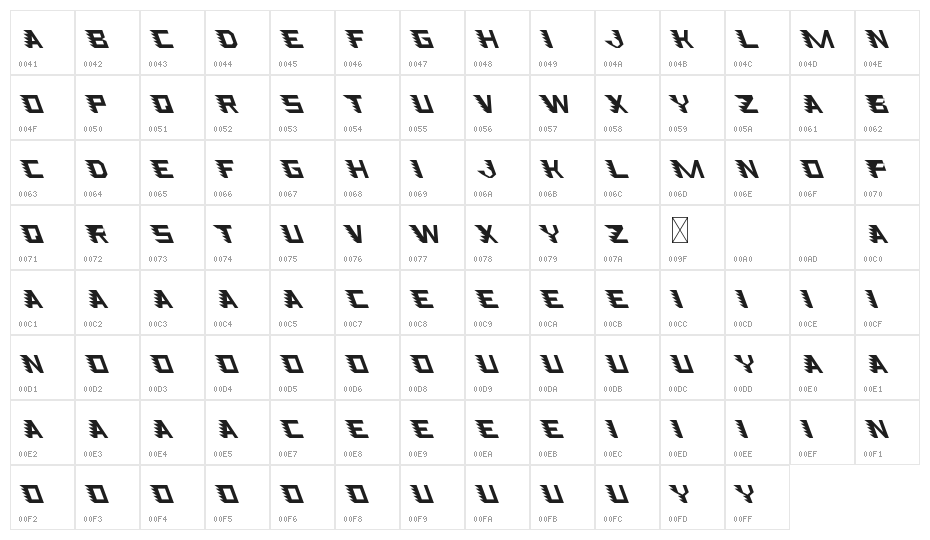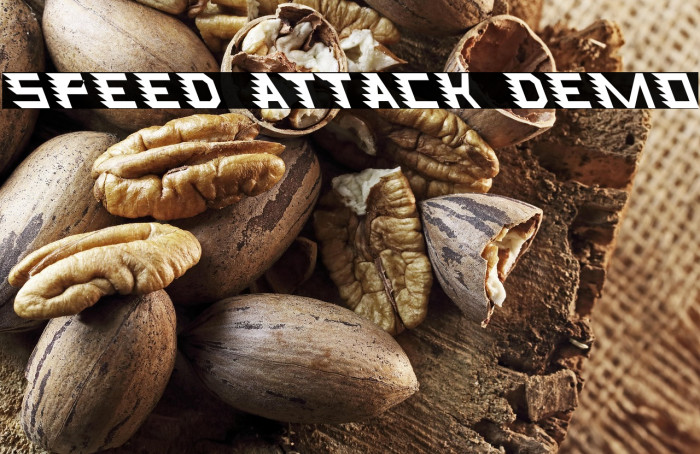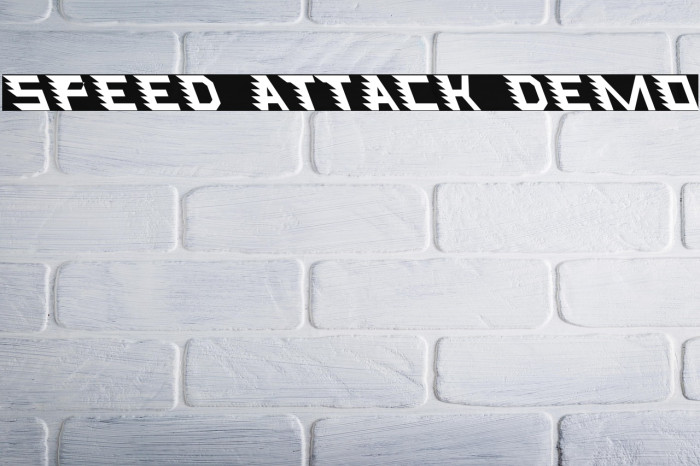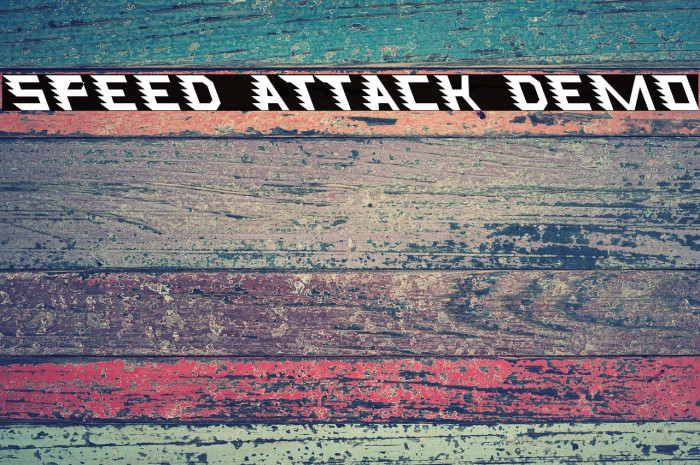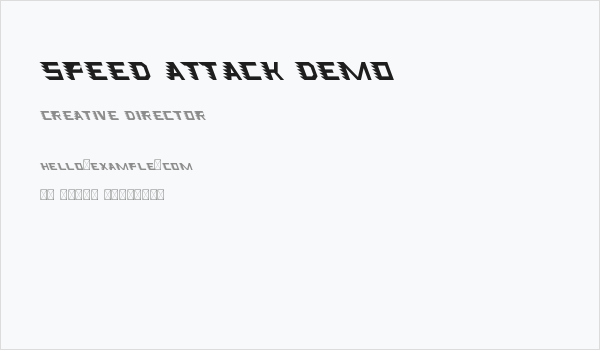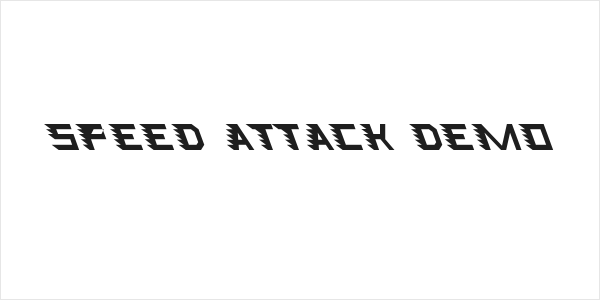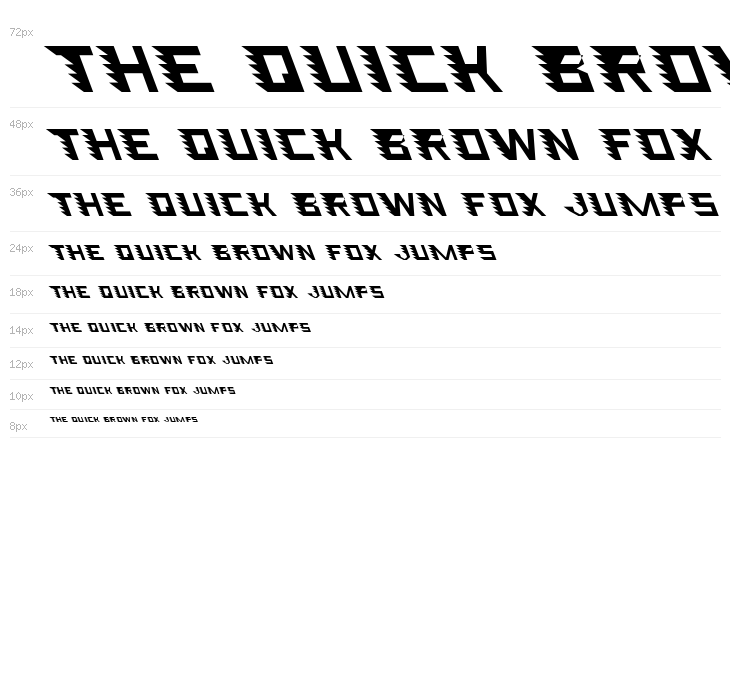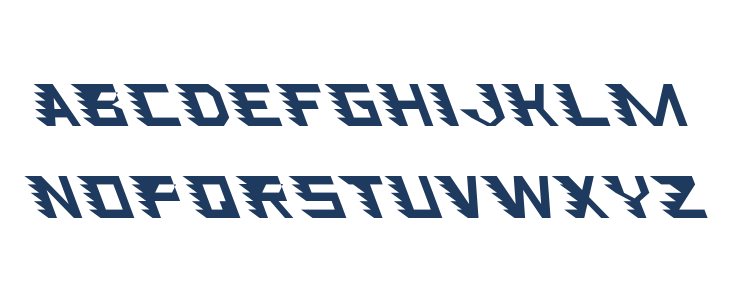
Speed Attack Demo Font
Speed Attack Demo Description
This font features a bold and aggressive design with sharp, angular edges that convey a sense of speed and motion. The characters are stylized with jagged, saw-like extensions that give them a dynamic and energetic appearance. The uppercase letters are consistent in their boldness, while the overall design maintains a cohesive look. The font's unique style makes it stand out, suitable for projects that require a strong visual impact. Its distinct characteristics make it ideal for use in contexts where a sense of urgency or action is desired.
| Overall Style | Modern, Energetic |
| Proposed Projects | Ideal for sports branding, action movie posters, video game titles, and dynamic advertisements. |